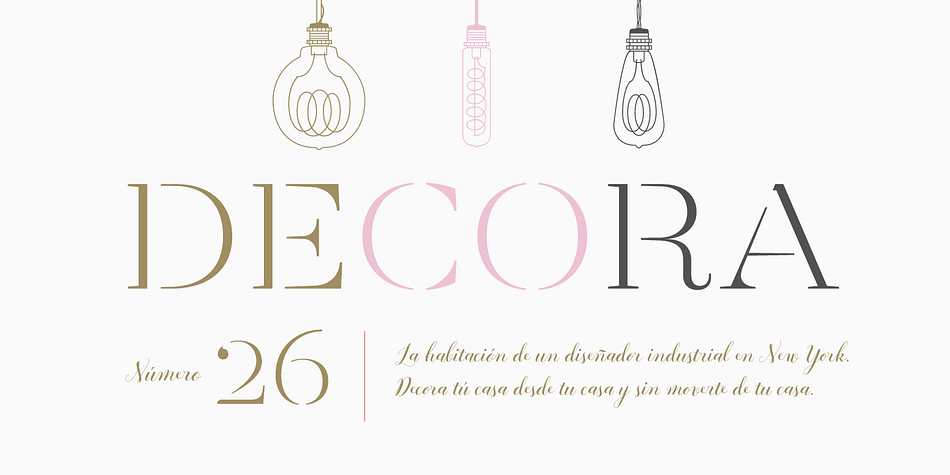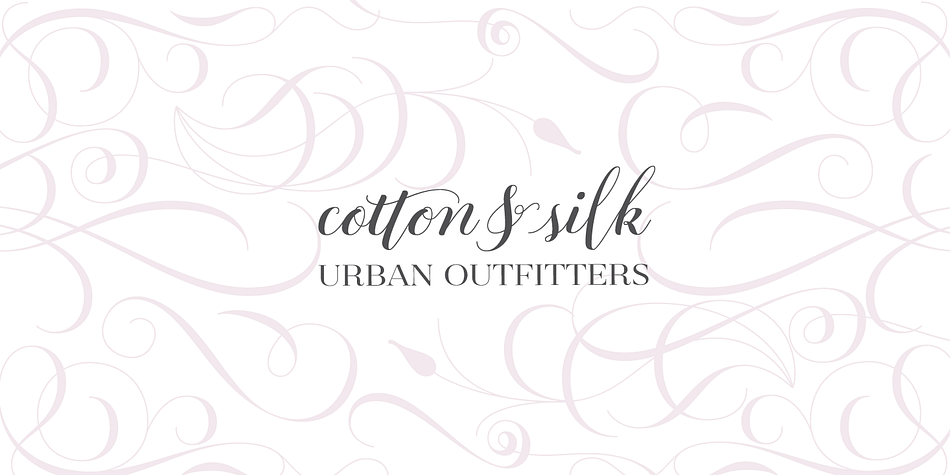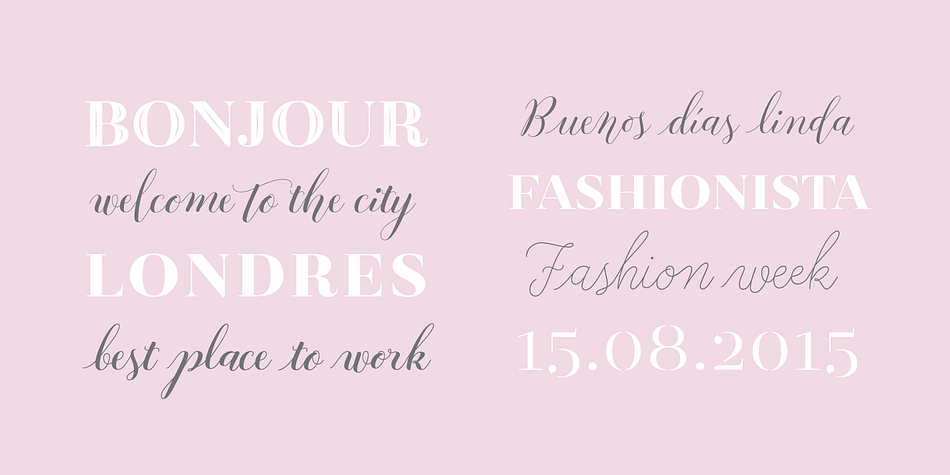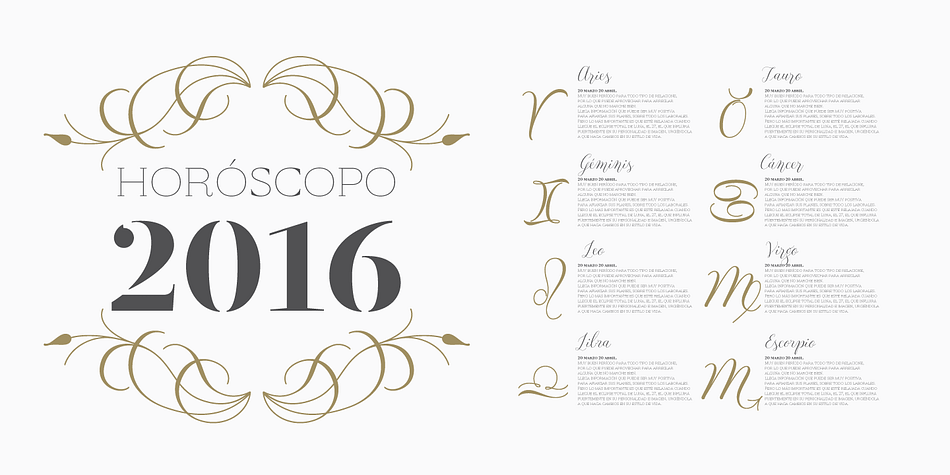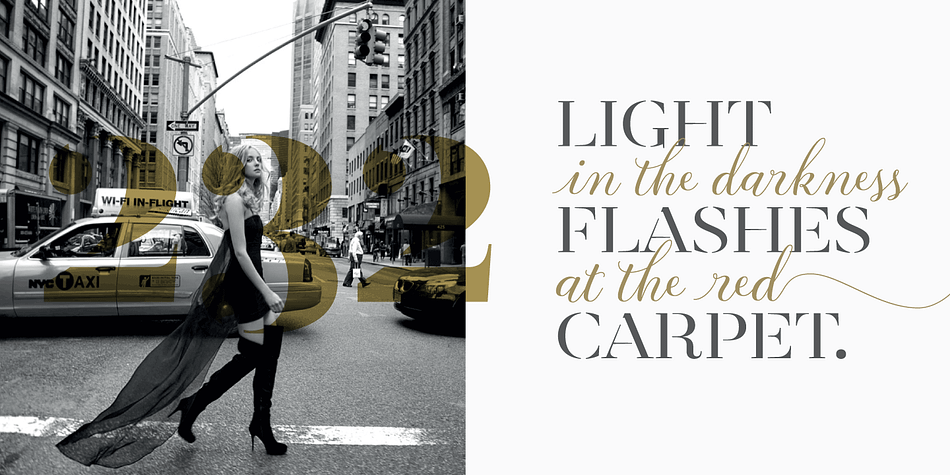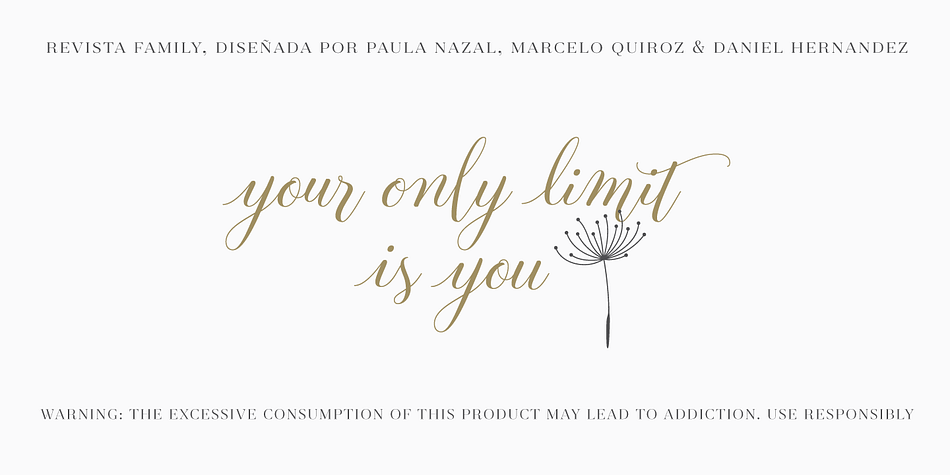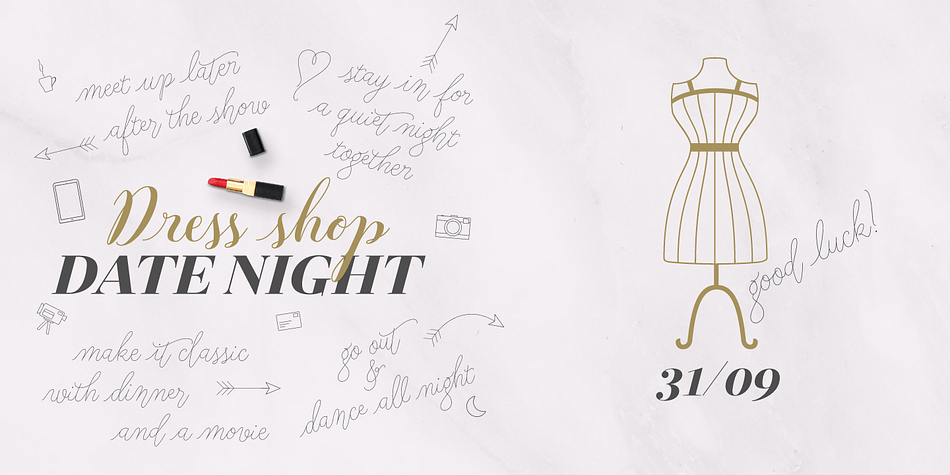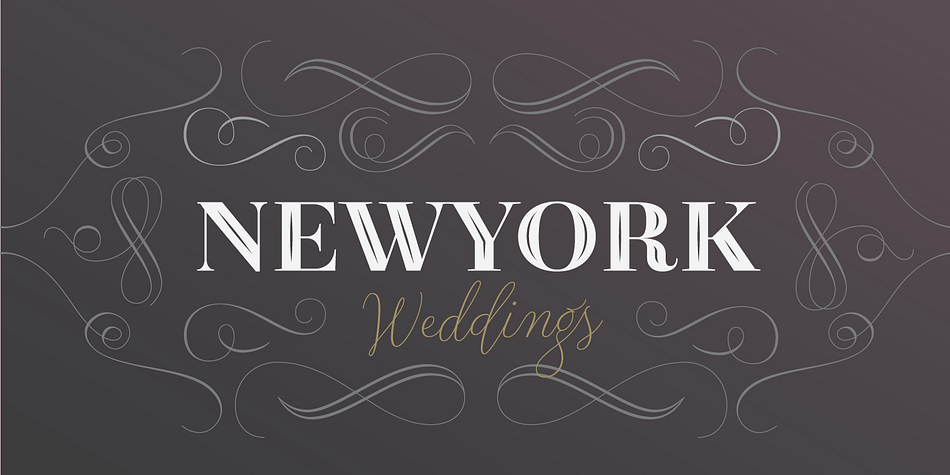
Designed by Paula Nazal Selaive, Daniel Hernández and Marcelo Quiroz, Revista is a multiple classification font family. This typeface has twenty-six styles and was published by Latinotype.
Revista is a typographic system that brings together all the features to undertake any fashion magazine-oriented project. The font harmoniously blends different styles into a single big family, which consists of a Didone uppercase and small caps family—including 4 variants ranging from a monolinear Thin to Black with matching italics—and an Inline Black variant that works as a decorative alternative to the Didone fonts. Revista Stencil, one of its versions, comes with the same number of variants.
Revista also comes with a Script Family that includes 5 weights, ranging from Thin (monolinear) to Black, contrasting in a tidily untidy way with many ligatures and alternates. You can choose between using stylistic alternates—if you want to give your designs a different untidy look, in the style of the modern calligraphy—or switching between different options if you are looking for a hand-written style. We highly recommend using the default contextual alternates and discretionary ligatures in order to take more advantage of this great font family.
Revista includes 2 sets of dingbats, varying from zodiac signs symbols to technology symbols, and complementary ornaments in 3 different weights: Thin (monolinear), Regular and Black.
All these features make Revista an ideal typeface for users to design to their liking!